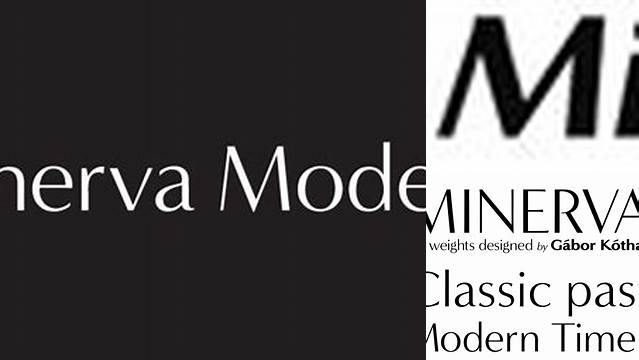
Hey guys! Are you on the hunt for a font that screams modern elegance? Well, look no further! Today, we’re diving deep into the world of the Minerva Modern font and how you can snag it for free. This font has been making waves in the design community, and for good reason. Its sleek lines and contemporary feel can elevate any project, whether you're working on a website, branding materials, or even a simple poster. Finding the right font can be a game-changer for your projects. It’s not just about aesthetics; it’s about conveying the right message and creating a visual identity that resonates with your audience. Minerva Modern achieves this with its unique blend of sophistication and readability, making it a versatile choice for various design needs. Let's explore where you can find this gem without spending a dime. We'll cover everything from reputable websites offering free downloads to the licensing considerations you need to keep in mind. We'll also touch on how to identify safe and reliable sources to avoid any potential pitfalls. So, buckle up and let's get started on your journey to discovering the Minerva Modern font and unleashing its potential in your creative endeavors!
What Makes Minerva Modern Font So Special?
So, what's the big deal about Minerva Modern font anyway? Well, its unique characteristics make it a standout choice for designers. The clean lines and geometric shapes give it a contemporary feel, while the subtle curves add a touch of elegance. This balance makes it incredibly versatile, suitable for everything from headlines to body text. Unlike some overly stylized fonts that sacrifice readability for aesthetics, Minerva Modern strikes a perfect balance. Its clear letterforms ensure that your message is easily understood, while its distinctive design adds a touch of sophistication. This makes it an excellent choice for projects where both readability and visual appeal are paramount. Think about logos, website headers, or even business cards – Minerva Modern can elevate these elements with its refined appearance. Furthermore, the font often comes in various weights and styles, offering even more flexibility for your design projects. Whether you need a bold statement or a delicate touch, there's likely a Minerva Modern variant that fits the bill. It's this adaptability that makes it a favorite among designers who want a font that can seamlessly adapt to different contexts and applications. Choosing the right font is crucial in conveying the right message and establishing a consistent brand identity. Minerva Modern, with its modern yet timeless appeal, can be a valuable asset in achieving these goals. It's a font that not only looks good but also communicates effectively, making it a win-win for any design project.
Best Practices for Using Minerva Modern Font in Your Designs
Now that you've successfully installed Minerva Modern font, let's talk about how to use it effectively in your designs. Just because you have a beautiful font doesn't mean it will automatically make your designs look amazing. It's all about using it strategically and thoughtfully. One of the key principles of typography is readability. While Minerva Modern font is generally quite readable, it's still important to consider the context in which you're using it. For example, if you're using it for body text, make sure the font size is large enough and the line height is appropriate for comfortable reading. Avoid using overly small font sizes or tight line spacing, as this can strain the eyes and make it difficult to read. Another important consideration is contrast. Make sure there's enough contrast between the text and the background to ensure that the text is easily visible. This is especially important for websites, where users might be viewing your content on different devices with varying screen resolutions. When using Minerva Modern font for headlines or titles, you can afford to be a bit more creative. Experiment with different font sizes, weights, and styles to create visual interest and hierarchy. However, avoid using too many different fonts in a single design, as this can make it look cluttered and unprofessional. Stick to a maximum of two or three fonts, and make sure they complement each other well. Finally, pay attention to kerning and tracking. Kerning is the spacing between individual letters, while tracking is the overall spacing of a block of text. Adjusting these settings can significantly improve the readability and visual appeal of your typography. By following these best practices, you can ensure that Minerva Modern font is used effectively in your designs, creating a polished and professional look.
Conclusion: Unleash Your Creativity with Minerva Modern Font
So, there you have it! A comprehensive guide to finding, installing, and using Minerva Modern font. We've covered everything from where to find free downloads to how to troubleshoot common installation problems. We've also discussed best practices for using the font in your designs and explored some alternatives in case Minerva Modern font isn't quite the right fit for you. By now, you should have a solid understanding of what makes Minerva Modern font so special and how to use it effectively in your creative projects. Whether you're a seasoned designer or just starting out, this font can be a valuable asset in your toolkit. Its clean lines, modern aesthetic, and versatility make it a great choice for a wide range of applications, from websites and logos to branding materials and print designs. So, go ahead and download Minerva Modern font (or one of its alternatives) and start experimenting. Unleash your creativity and see what amazing things you can create! Remember to always check the font license before using it in commercial projects, and don't be afraid to try different font combinations and styles to find what works best for you. With a little practice and experimentation, you'll be creating beautiful and professional designs in no time. And most importantly, have fun! Designing should be an enjoyable and rewarding experience, so embrace the process and let your creativity flow. Good luck, and happy designing!